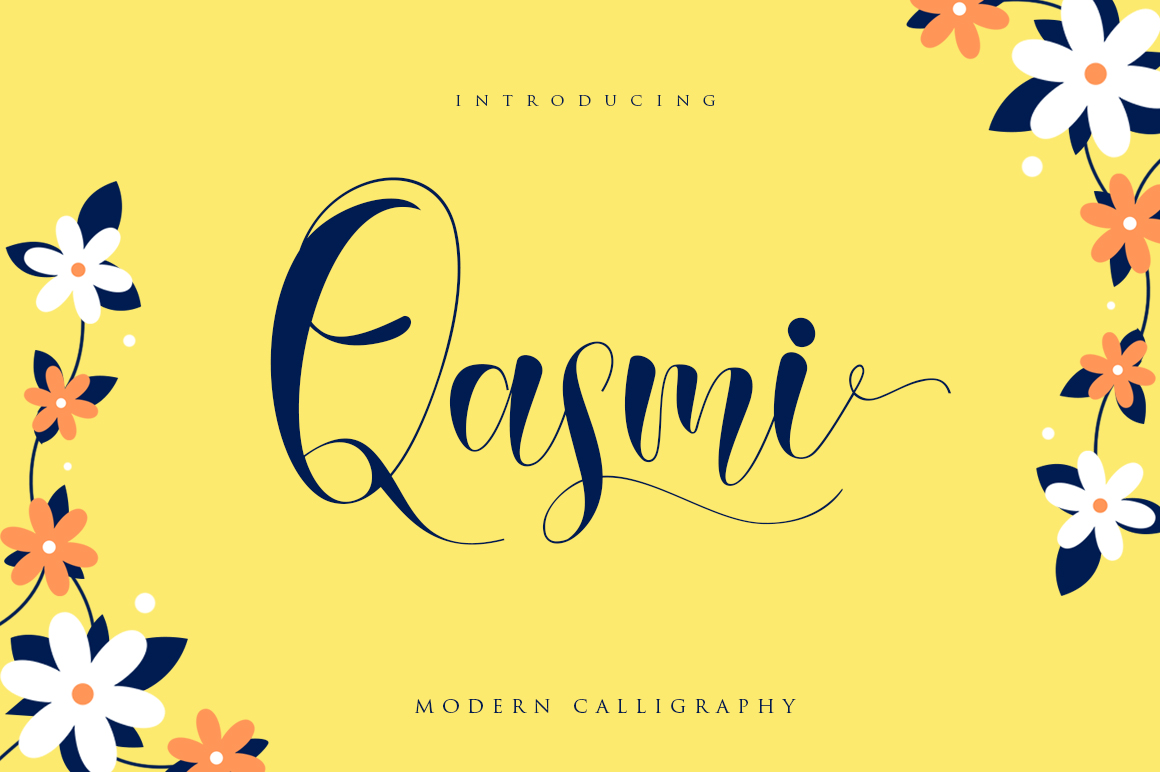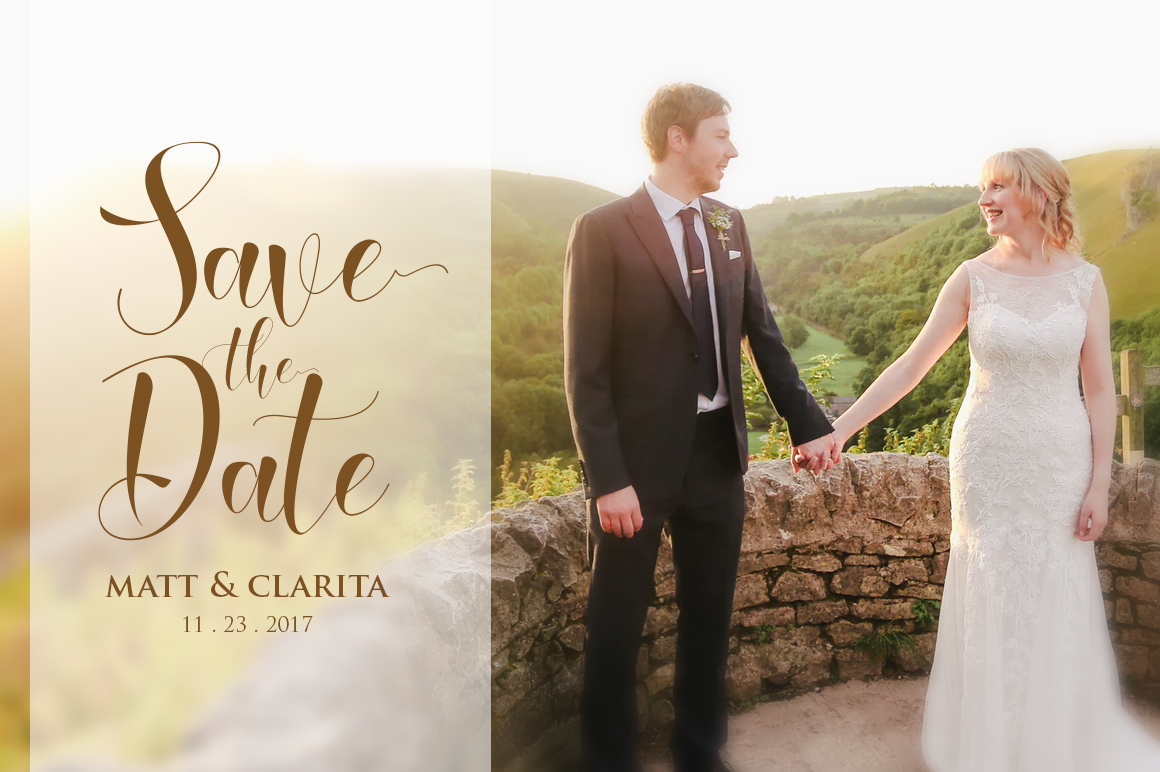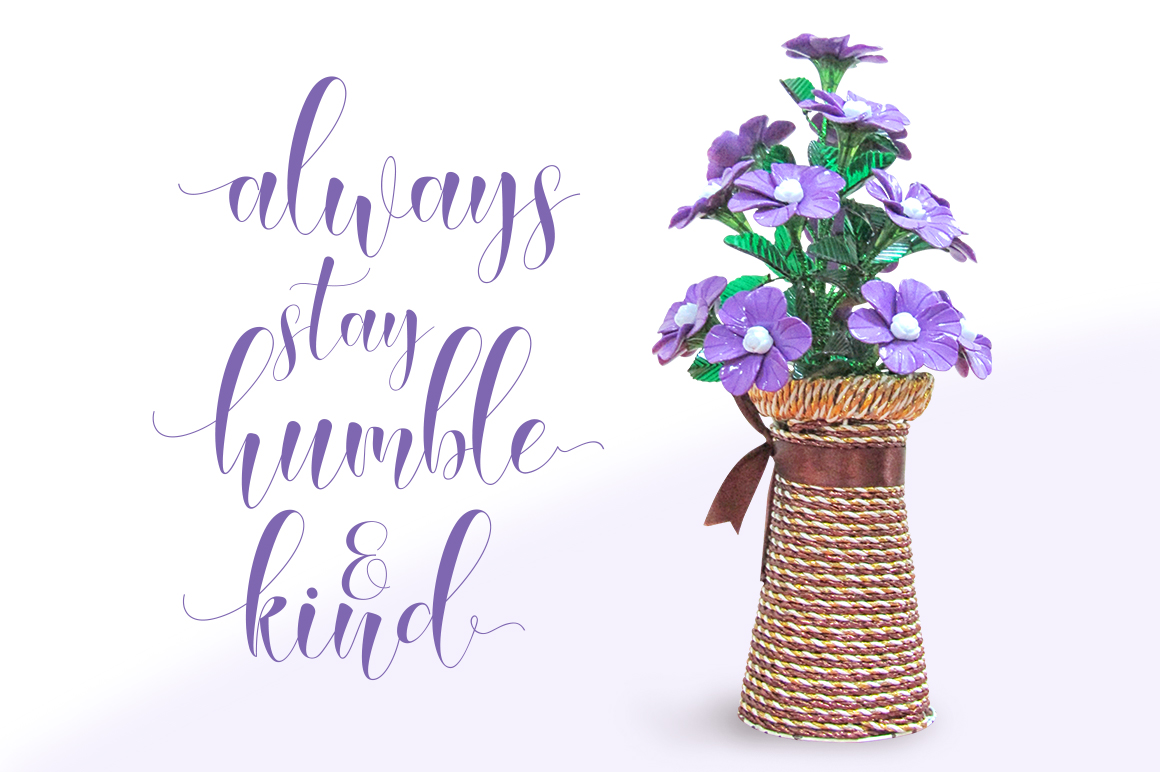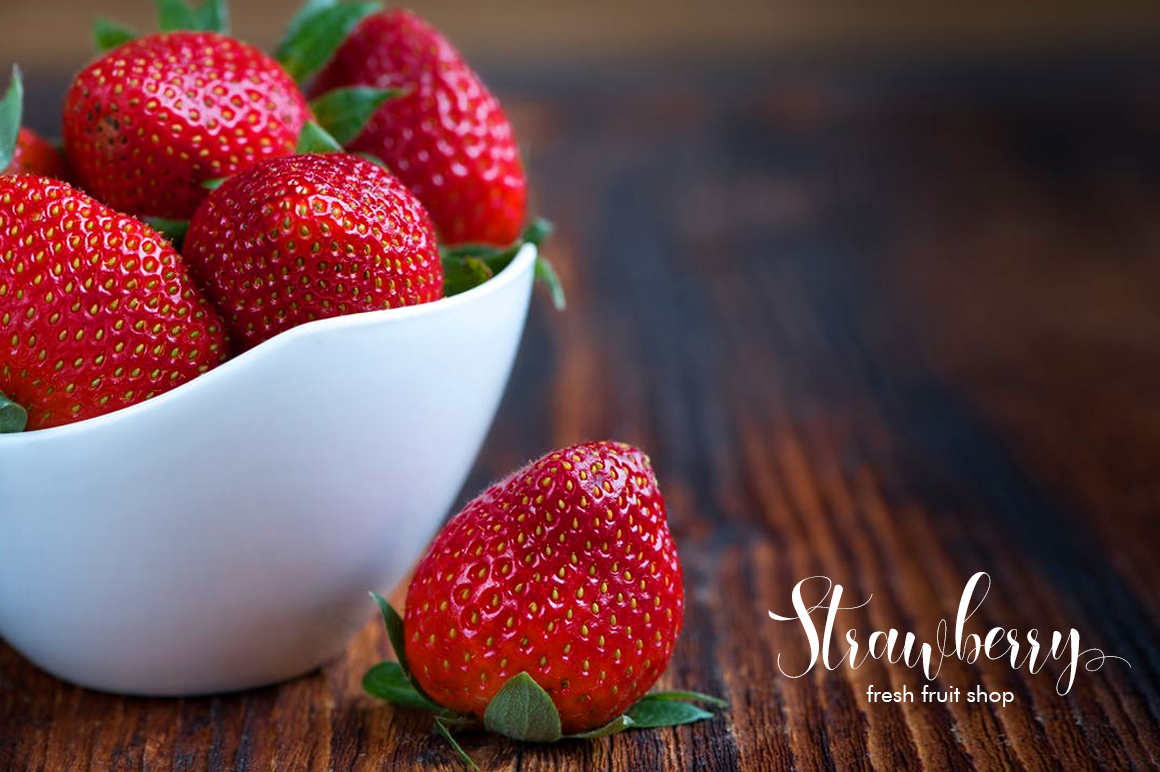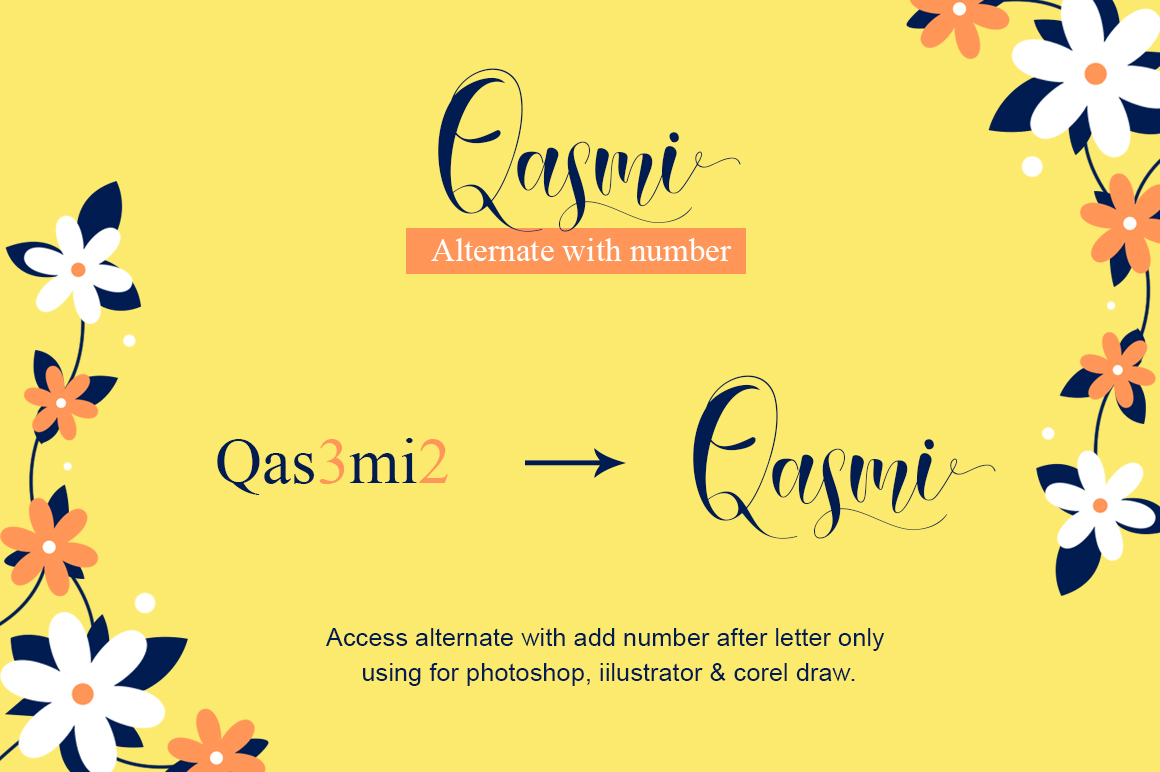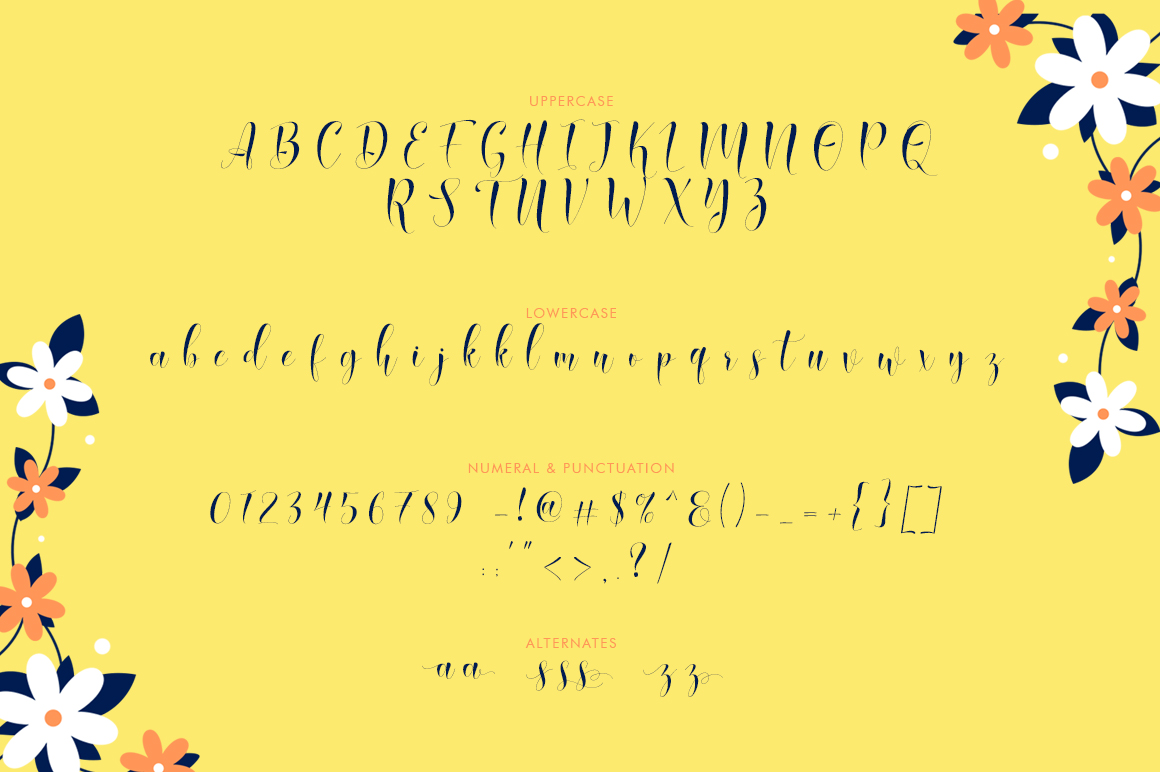
Qasmi Script Font
About Qasmi Script Font
Qasmi is a beautiful handmade script font, with modern calligraphy that’s right on trend. Beautiful and timeless, Qasmi can add some classic appeal to your designs all the while keeping your style up to date.